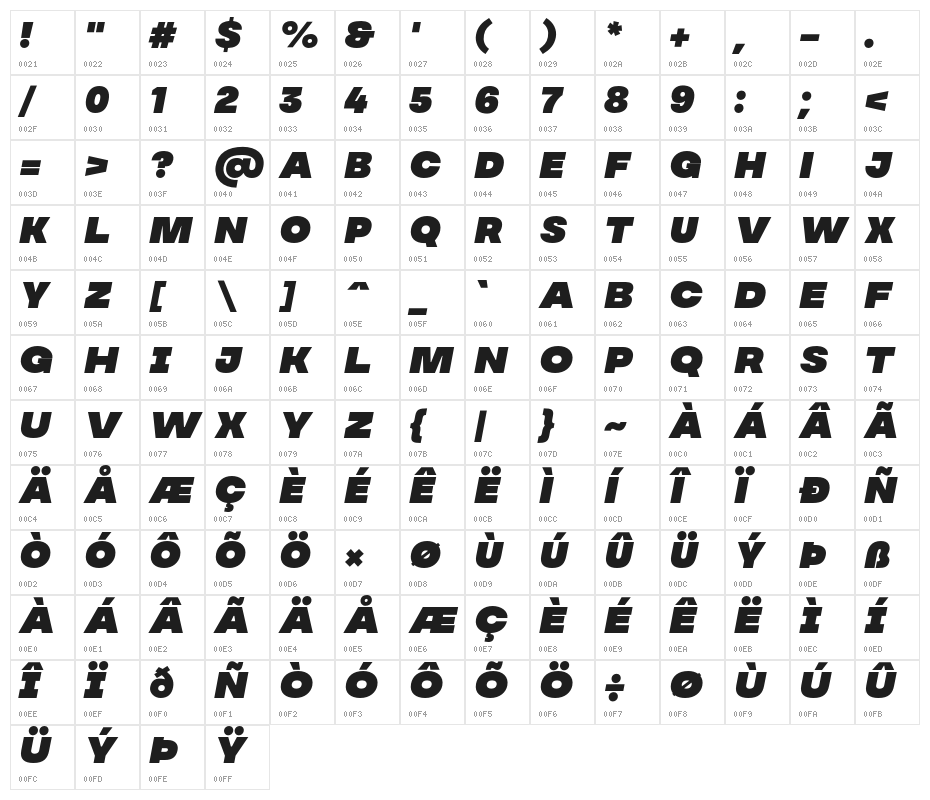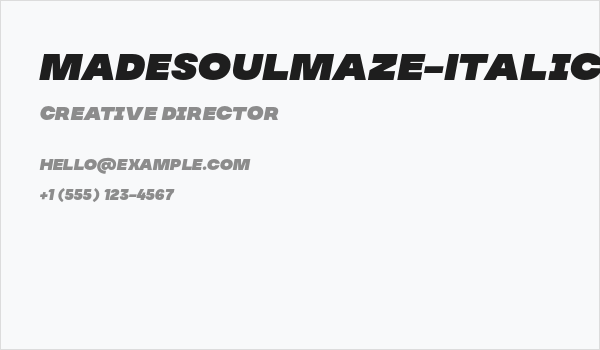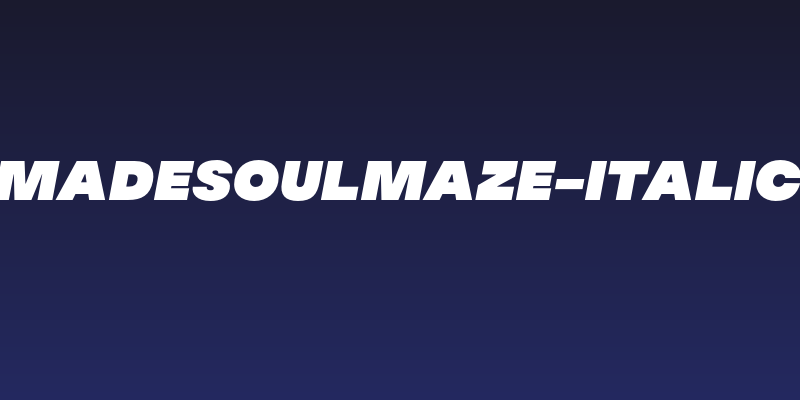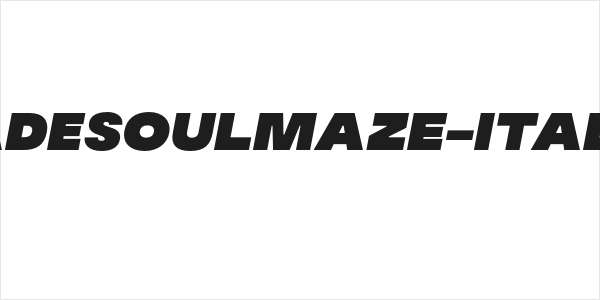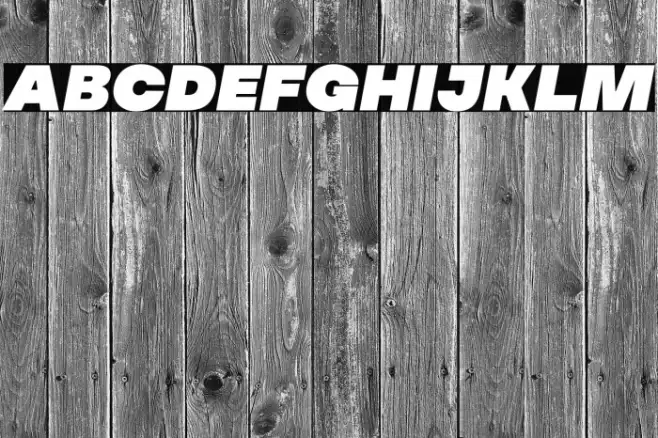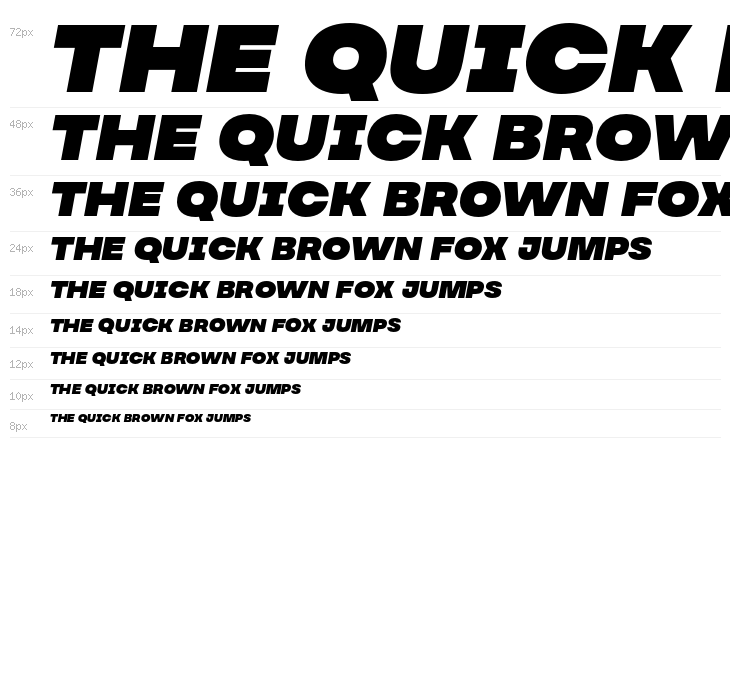
MADESoulmaze-Italic Font
MADESoulmaze-Italic Description
This font features a bold and dynamic style with a strong italic slant, giving it a sense of movement and energy. The characters are wide and robust, with a consistent stroke thickness that enhances readability. The uppercase and lowercase letters maintain a uniform appearance, while the numerals are clear and easy to distinguish. Special characters are well-integrated, matching the overall bold aesthetic. This font is designed to make a strong visual impact, suitable for projects that require a modern and assertive look.
| Proposed Projects | Ideal for sports branding, dynamic posters, and impactful headlines. |